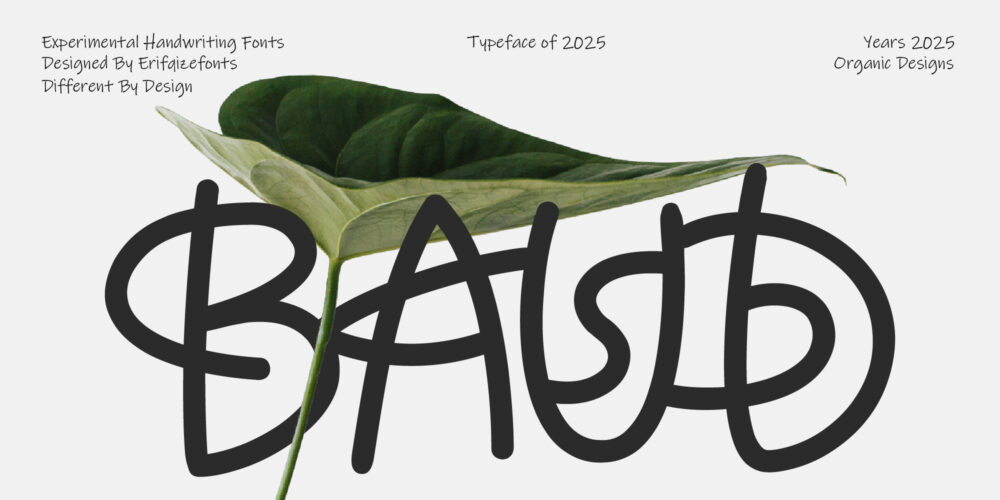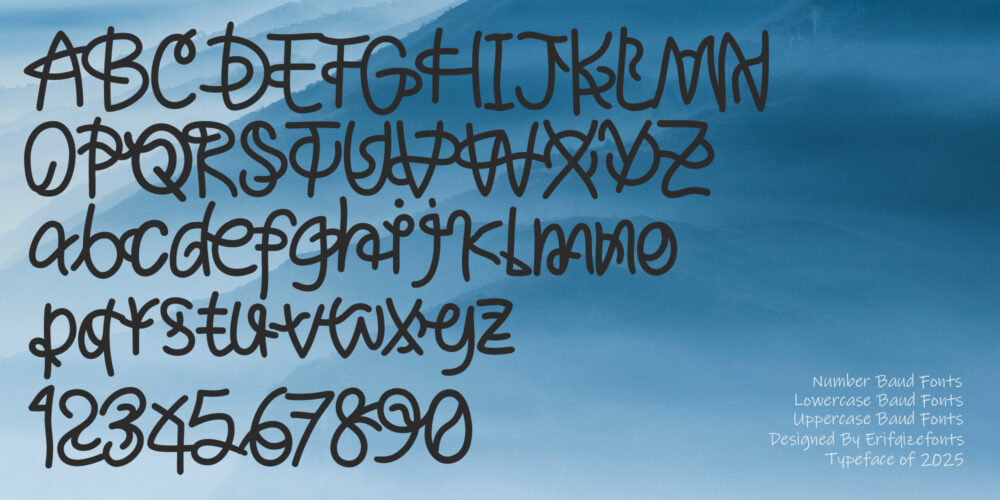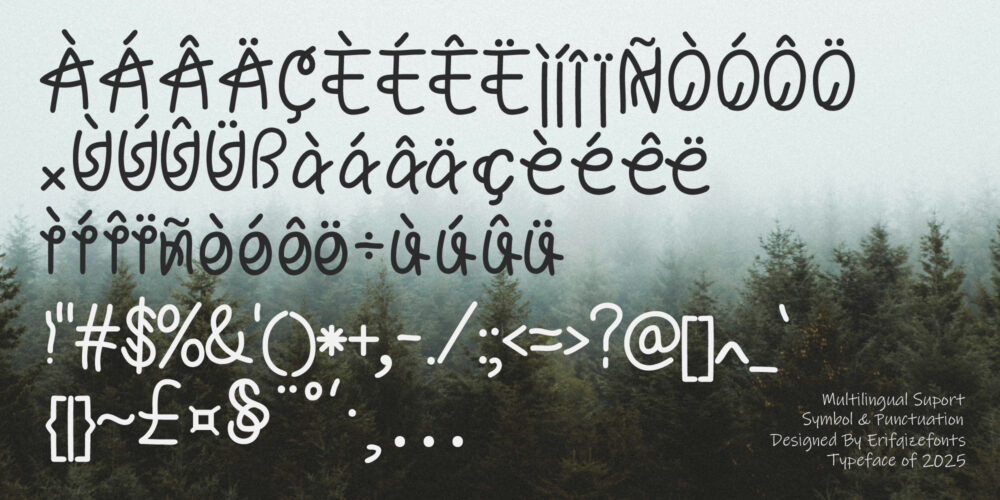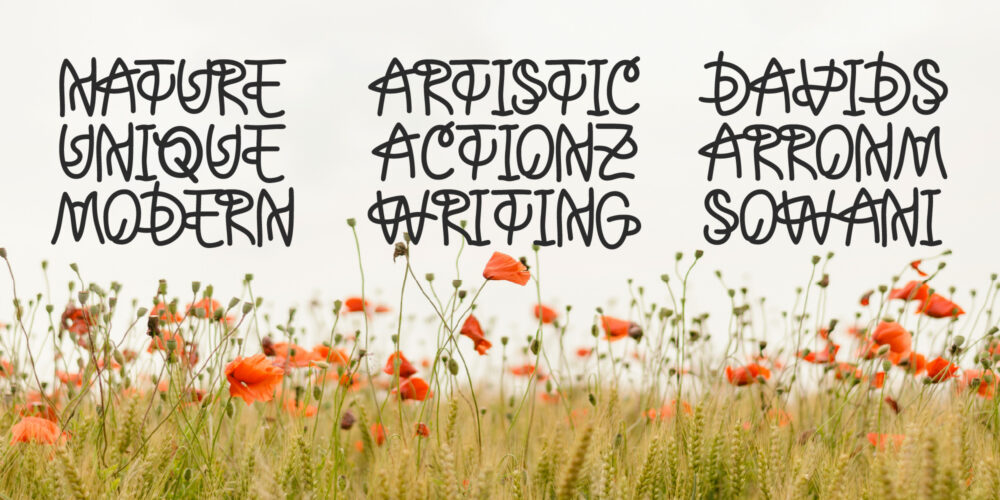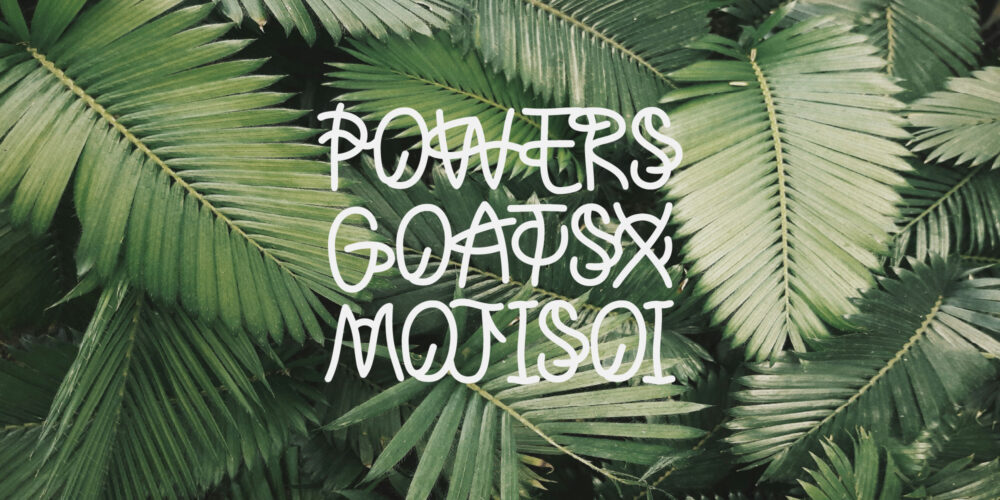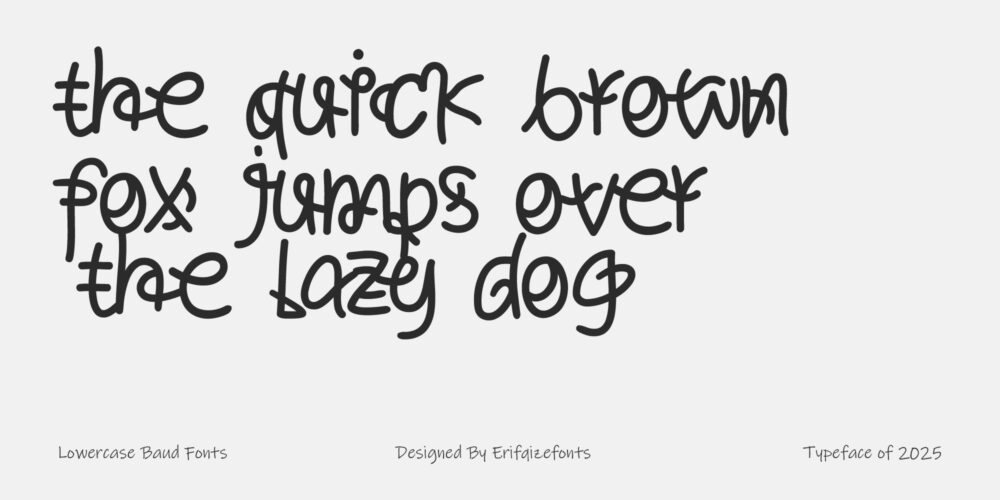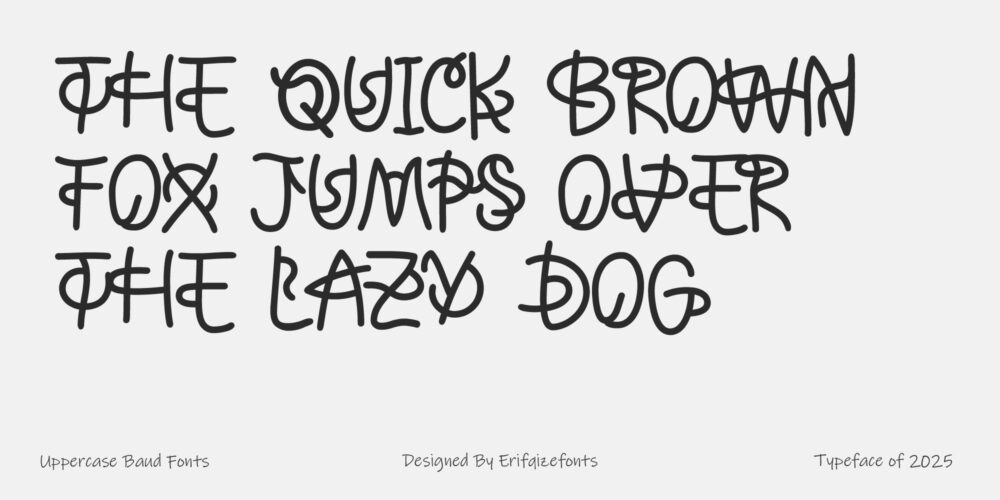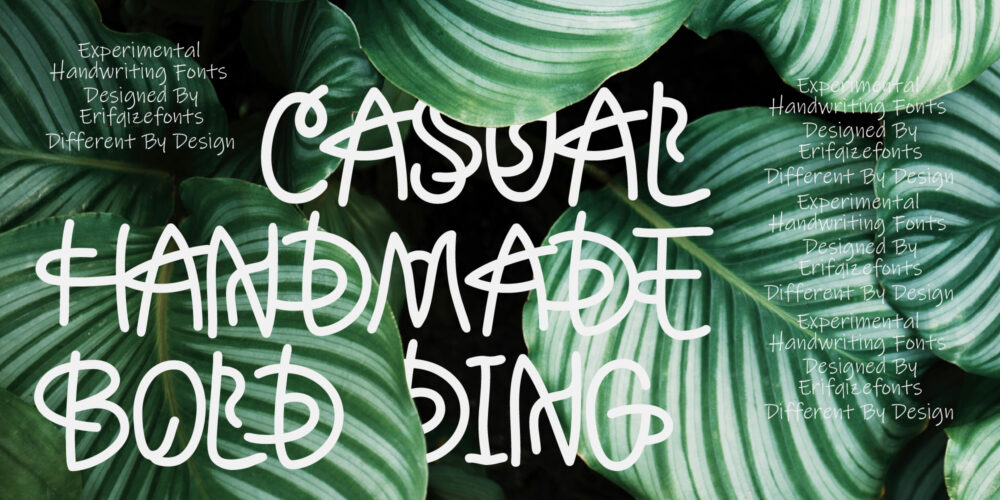
Baud – Enchanted Handwriting Font
Baud is a whimsical handwritten font with a touch of abstract flair, radiating a magical and imaginative aura in every stroke. Its smooth monoline curves and dynamic letterforms give the impression of writing that appears as if by spell—elegant, fluid, and full of character.
With its eccentric yet graceful design, Magic Monoline is perfect for creative projects that aim to spark curiosity and wonder—such as branding, invitations, quotes, packaging, or any design that needs a hint of enchantment.
This font also includes multilingual support, making it versatile and ready for global use.